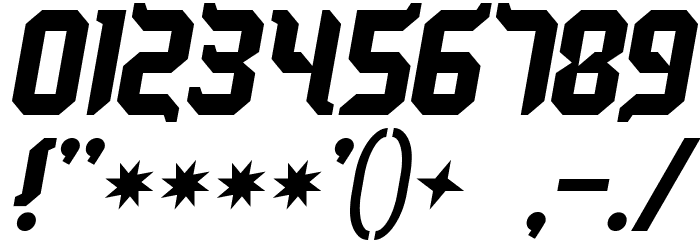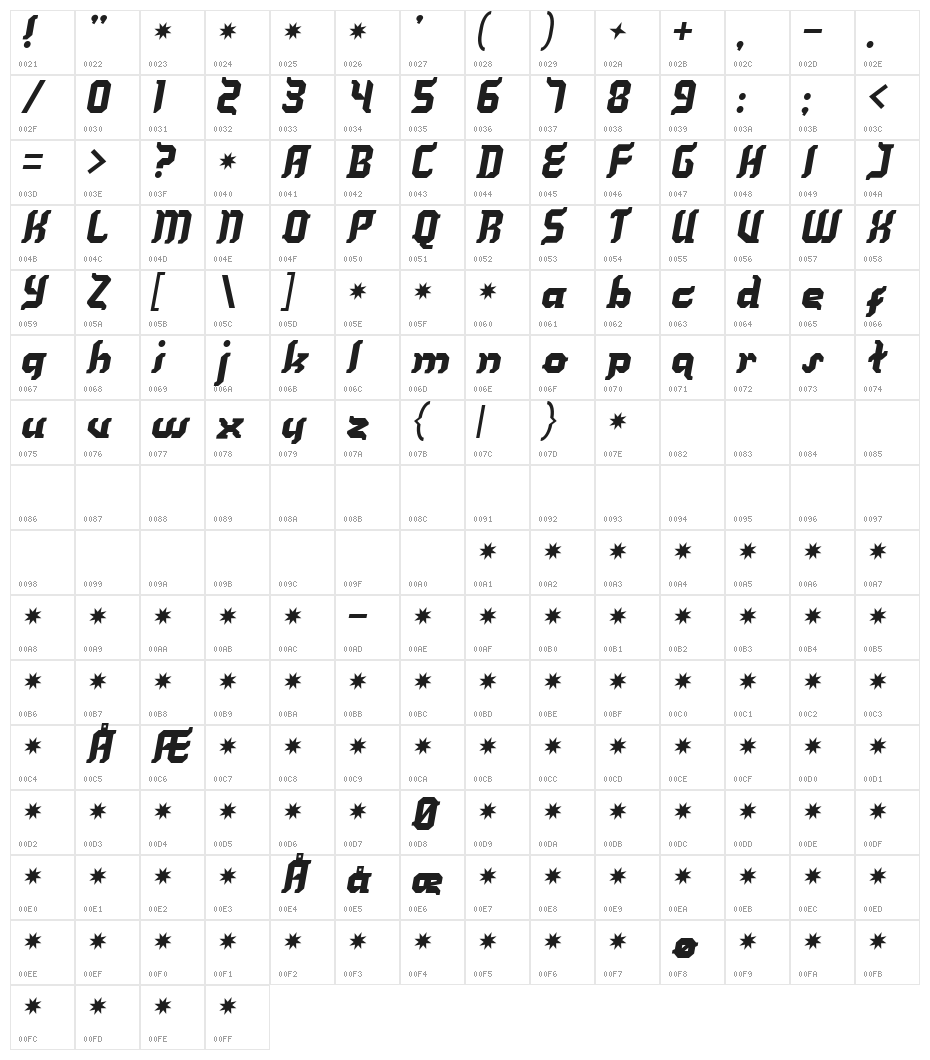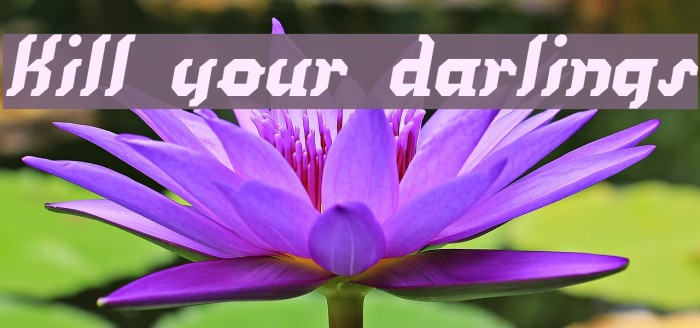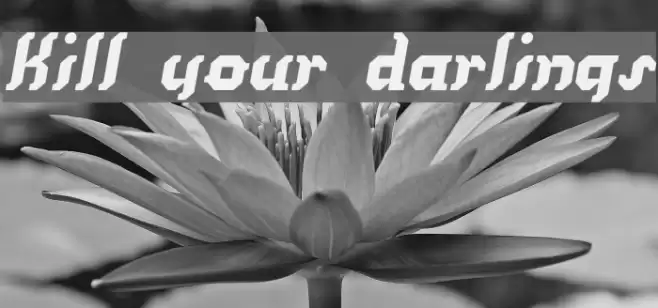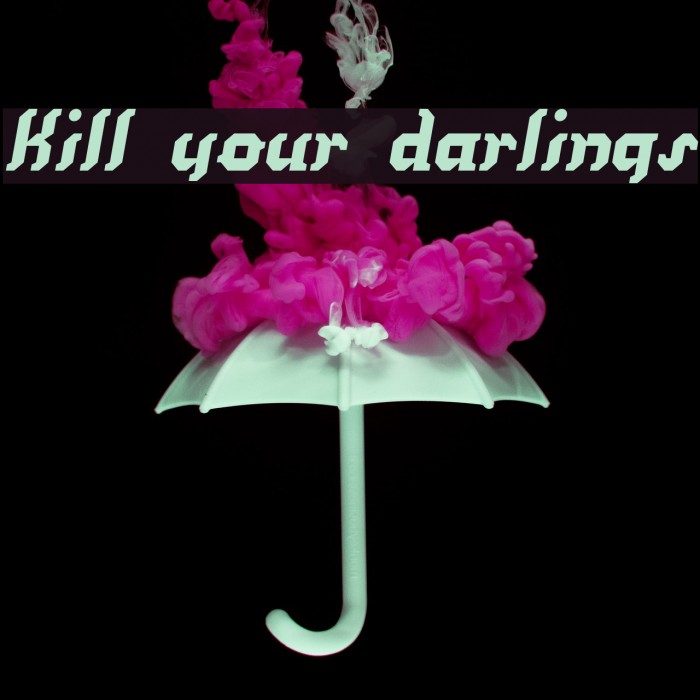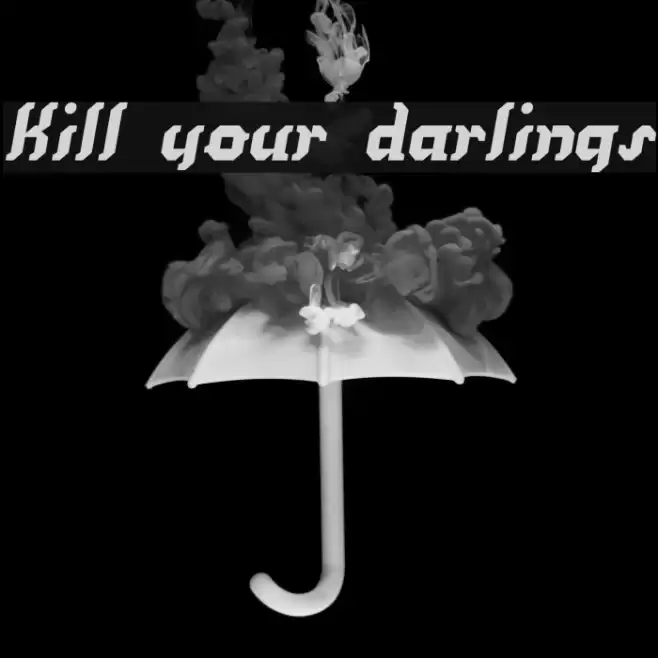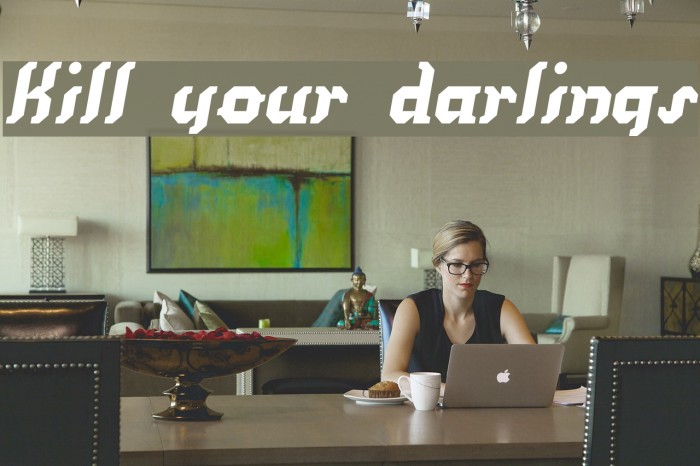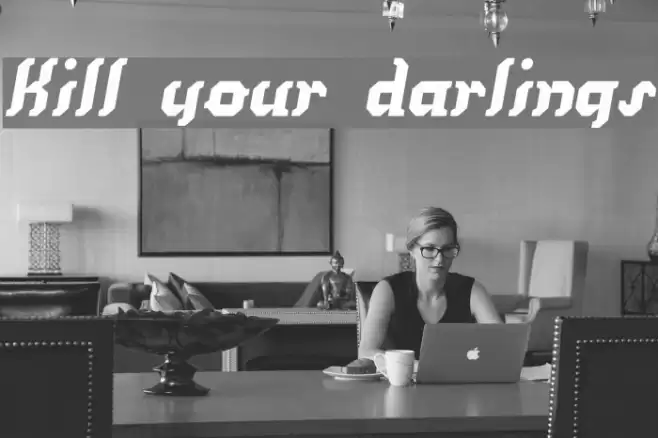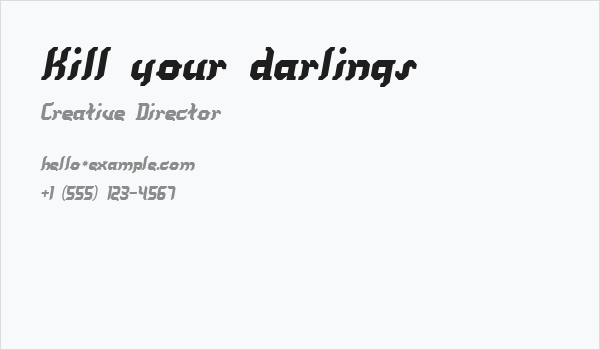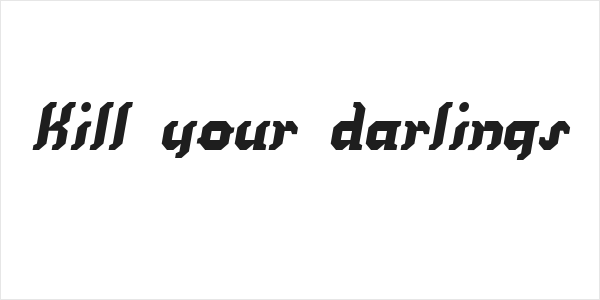
Kill your darlings Font
Kill your darlings Description
This font features a bold and angular design, characterized by sharp edges and a dynamic, forward-leaning stance. The uppercase letters are particularly striking, with a geometric style that conveys strength and modernity. The lowercase letters maintain the same angular aesthetic, ensuring consistency across the typeface. Numbers are bold and easily readable, while the special characters add a unique flair, making them stand out. The overall design is reminiscent of a futuristic or industrial theme, suitable for projects that require a strong visual impact.
| Proposed Projects | Ideal for branding, posters, and any design needing a strong, modern impact. |